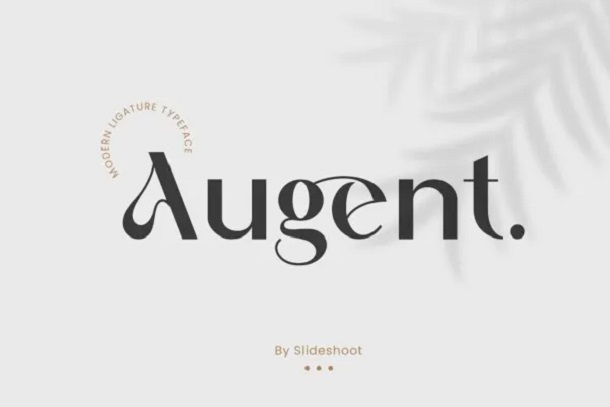
Augent Font
Augent Sans Serif Font, is an elegant and graceful Sans serif typeface designed with beauty in mind. With its stunning design, Augent Sans Serif can complement invitation cards, corporate logos, movies, book titles, names brand designs as well as many other applications.
Augent Sans serif exudes elegance and sophistication; its intricate ligatures and alternations patterns make this font the ideal companion for any project.
Augent Sans Serif Font